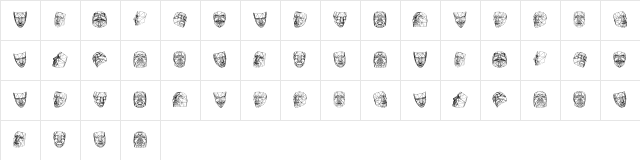
Masks 3D Regular
Design Context for Masks 3D Typeface
Masks 3D is a composed and adaptable typeface that performs quietly and consistently across a wide range of design contexts.